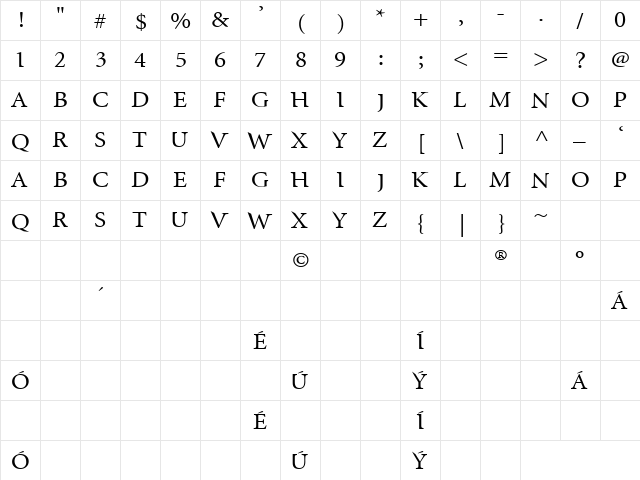
InfraRed Regular
| Designer | Zdenek Gromnica aka FutureMillennium |
Design Context for InfraRed Typeface
InfraRed offers clean, dependable letterforms without strong stylistic allegiance, making it a practical choice for designers who need flexibility.